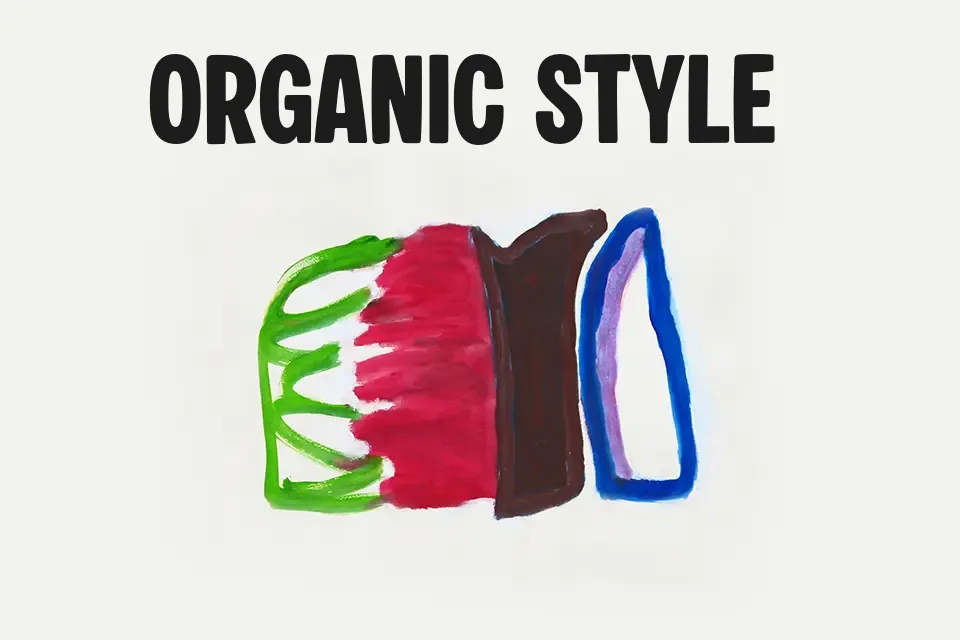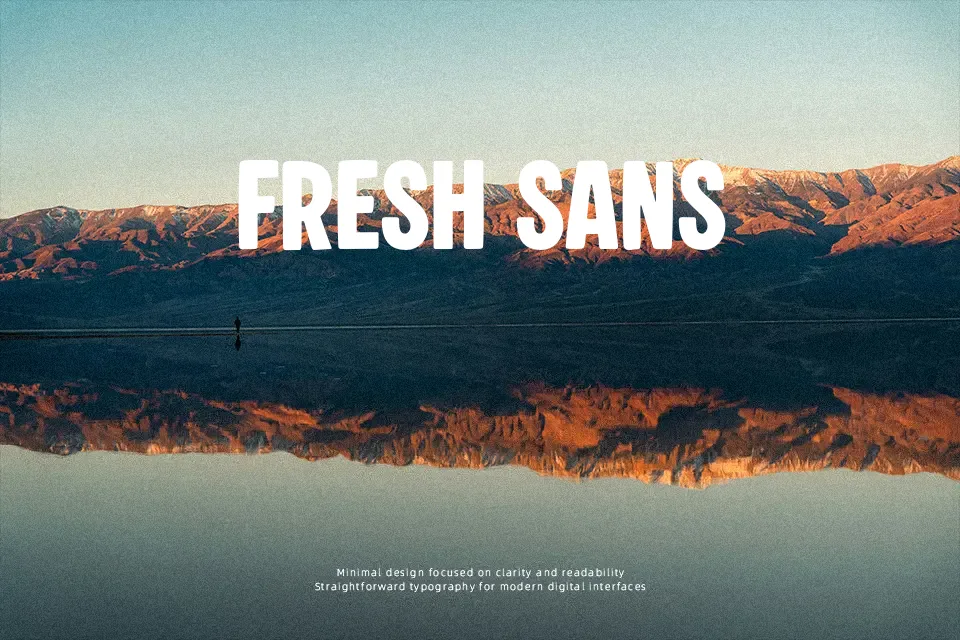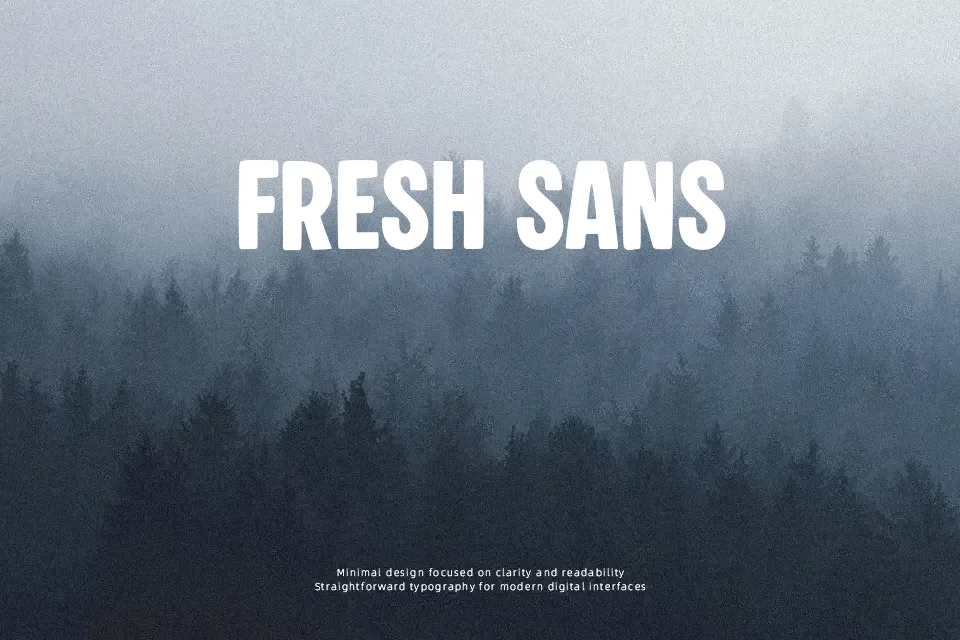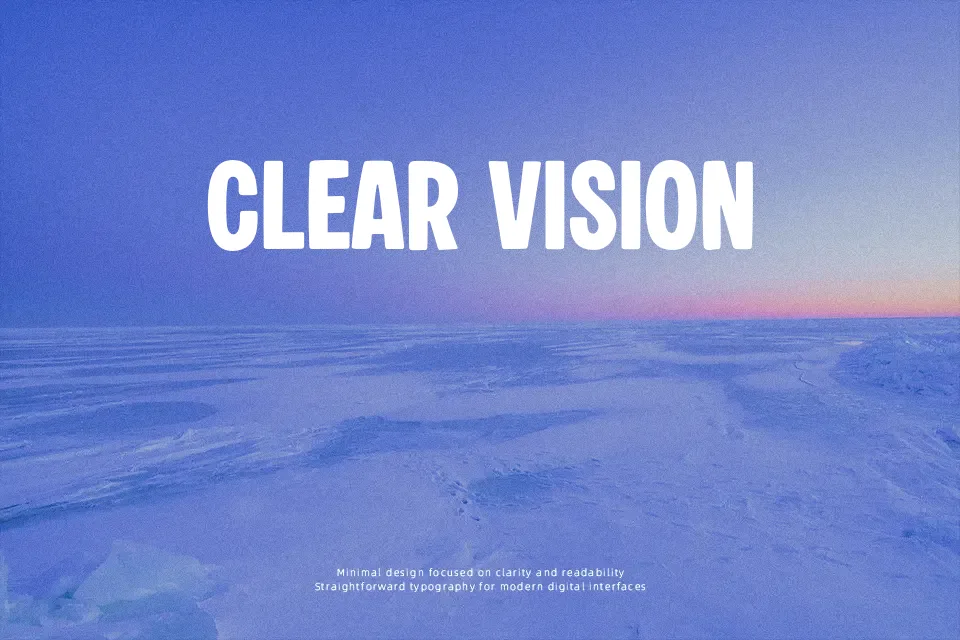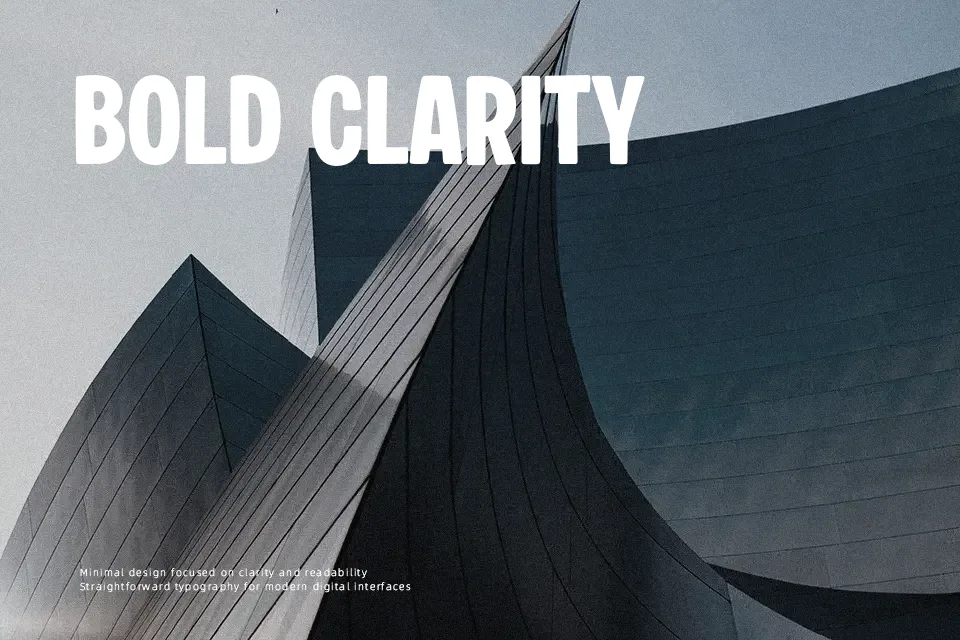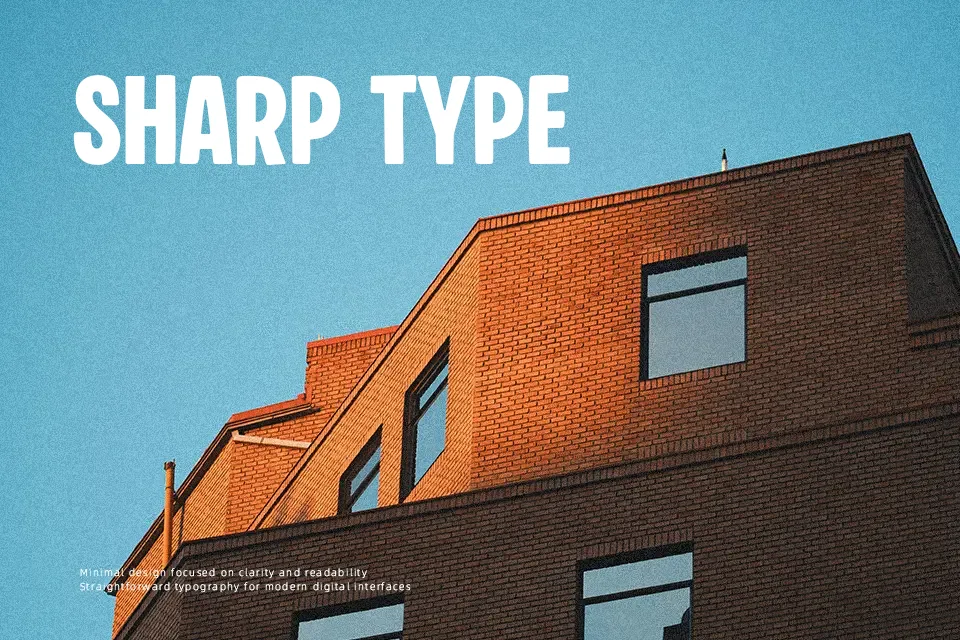
Barber Chop Font
There’s a raw, ink-heavy confidence to Barber Chop that makes it hard to ignore — the kind of font you reach for when a design needs attitude, not refinement. Thick, uniform strokes sit inside slightly condensed letterforms, giving the characters a compact punch rather than an open, airy feel. The rounded edges keep it from turning aggressive, while hints of retro comic styling pull it toward something nostalgic and expressive. It handles headline-sized settings well, especially on posters, badges, and apparel. Where it stumbles is in tight spacing at small sizes — the weight density makes body text feel crowded and difficult to read. If you need something softer or more polished for formal contexts, this isn’t it. Think of it closer to a hand-lettered sign shop aesthetic than a clean geometric display.
Best For:- Youth apparel and streetwear graphic headers
– Comic book covers and gaming title screens
– Badge, sign, and street-food menu headers
– Bold social media quote cards and poster headlines
Not Ideal For:- Body text or any multi-line paragraph setting
– Corporate reports or professional business documents
– Minimalist or luxury brand identities
– Fine print, captions, or small-size UI labels
Perfect for advertising, branding, and gaming, with a bold and comic style.